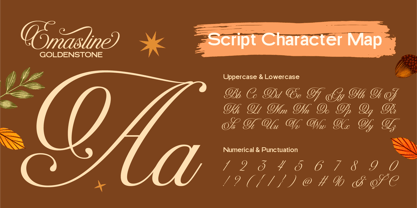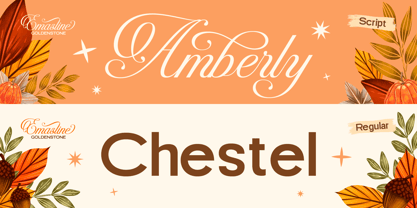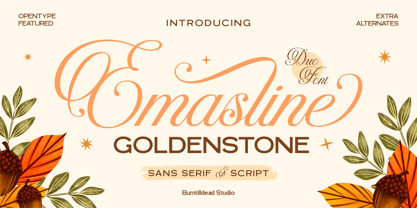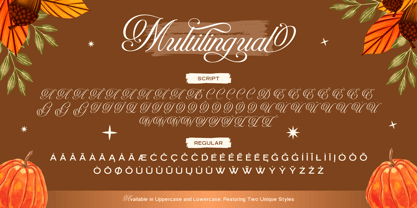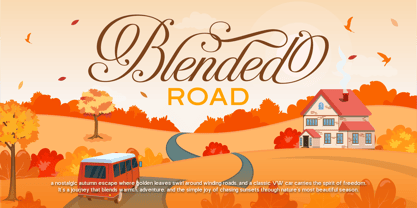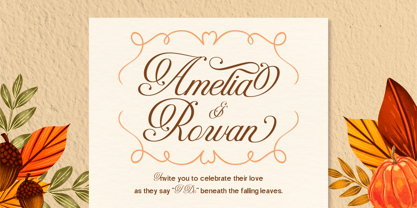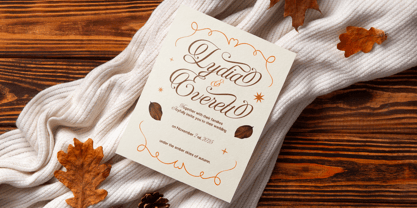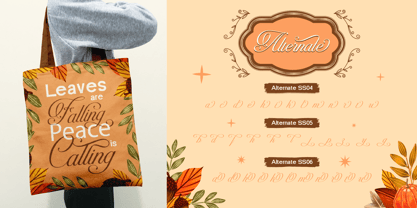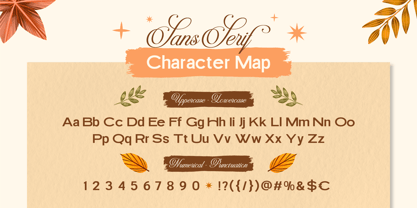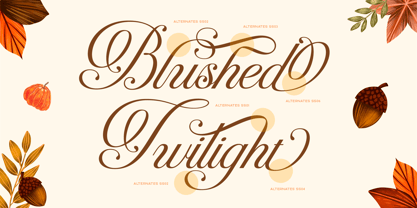
Emasline Goldenstone
The Emasline Goldenstone Font Family was designed by Eric Kurniawan and published by Burntilldead. Emasline Goldenstone contains 2 styles and family package options. More about this family
Say hello to Emasline Goldenstone, a duo font that feels like a warm cup of tea on a crisp autumn afternoon. This font combines a graceful script and a modern sans serif, making it perfect for cozy seasonal designs, wedding invitations, fall branding, or anything that needs that “golden hour” touch. Each letter flows beautifully like falling leaves, with elegant alternates and swashes to make your words look charming. Whether you're designing a Thanksgiving menu, a greeting card, or packaging for your homemade treats, Emasline Goldenstone brings that heartwarming, nostalgic vibe to your work. It’s classy yet friendly — wrapped in the warmth of autumn colors. Features: A - Z set (Uppercase & Lowercase), Number, Alternates, Punctuation, Multilingual